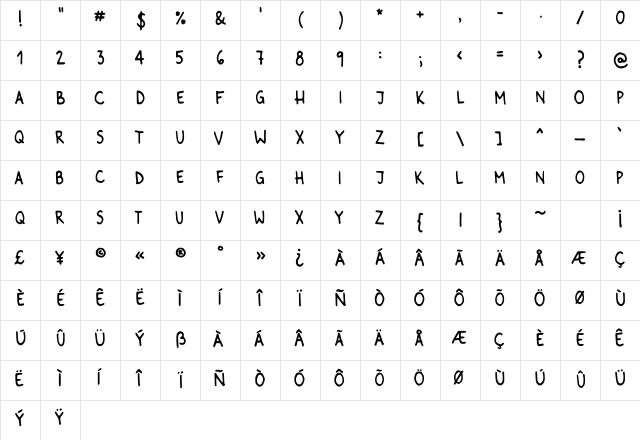
Stop Yelling Regular
| Foundry | Corina Alvarez Loeblich |
| Designer | Corina Alvarez Loeblich |
Design Context for Stop Yelling Typeface
Stop Yelling takes a measured approach to typography — its balanced proportions and neutral character make it a reliable workhorse for both digital and print work.